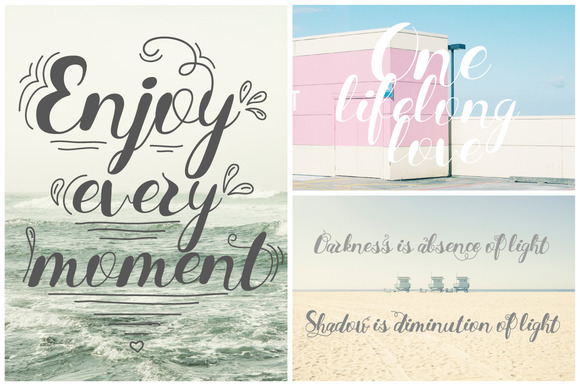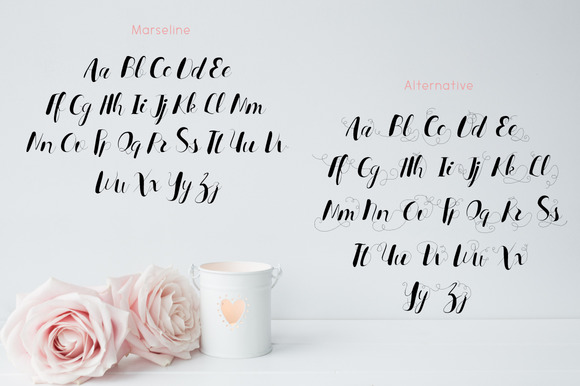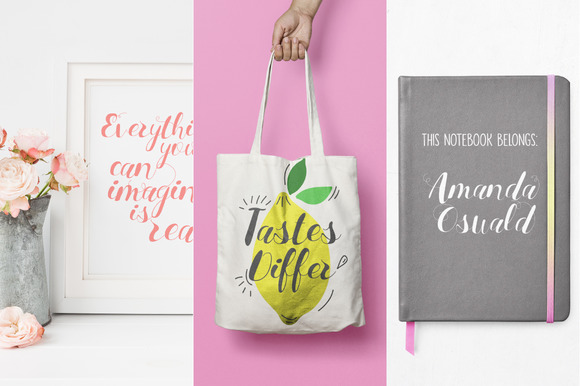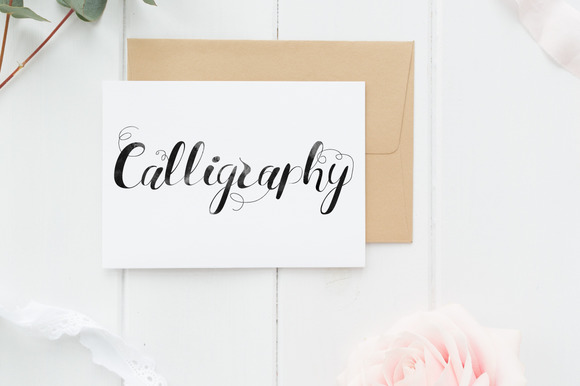
Introduction to Marseline Font
Have you ever been stuck on a creative project, staring at a blank page, and suddenly, a spark of inspiration strikes? That’s exactly what happened to us when we discovered the enchanting Marseline Font. This romantic and modern calligraphy script font has been a game-changer for designers, and we’re excited to share its magic with you.
Whether you’re working on a high-quality design project, creating a beautiful logo, or crafting a special invitation, the Marseline Font is an incredible resource that can elevate your work to the next level. Its elegant and refined style makes it perfect for a variety of applications, from headings and labels to posters and book covers.
Key Features of Marseline Font
- High-quality design resource with a unique, creative touch perfect for various projects
- Includes a range of characters and glyphs, making it suitable for both Latin and Cyrillic languages
- Features a high-resolution design (300 DPI) for crisp and clear display on various mediums
- Perfect for creative projects requiring a stylish and modern font, such as logos, typography, and branding materials
Honest Review: Marseline Font
I recently stumbled upon the Marseline Font and was excited to dive into its features. As a designer, I’m always on the lookout for high-quality design resources to elevate my creative projects.
Here are some of the things that work well for me:
- ✨ Elegant and refined design aesthetic
- ✨ Perfect for creative projects that require a touch of sophistication
- ⚠️ Limited language support (only includes Latin characters)
- ⚠️ May not be suitable for projects that require a bold or playful font
Overall, I’m impressed with the Marseline Font and would recommend it to designers looking for a high-quality, elegant font to add to their collection. While it may have some limitations, its unique design and free download make it a valuable resource for any creative project.
Marseline Font
For the most out of Marseline Font, use it with a transparent background to create visually appealing designs. Experiment with different font sizes and styles to add creativity to your project. You can also pair Marseline Font with other free downloads to create a unique design resource.
Marseline Font is commonly used in creative projects, such as logos, posters, and social media graphics. Its high-quality design makes it a popular choice for designers and non-designers alike. Whether you’re working on a personal project or a commercial design, Marseline Font is a valuable addition to your design resource library.